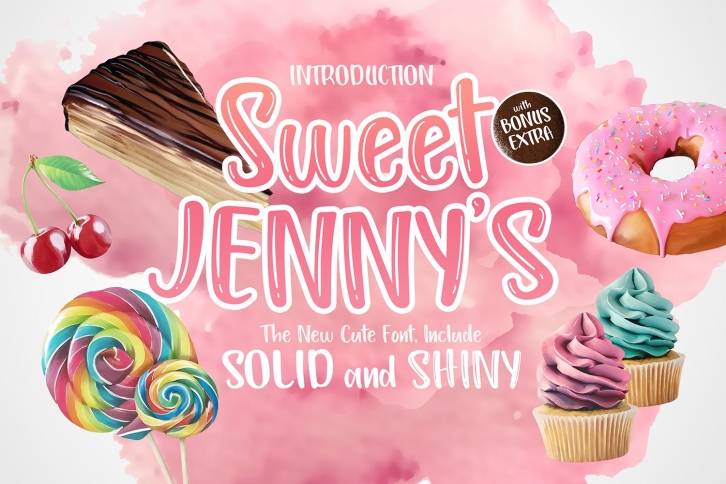
Sweet Jennys is a beautiful font that was designed by HRStudio. It's a great choice for designers and creatives who need such a font. It was released on August 9, 2020 and the file size is 9.45 MB. Sweet Jennys may give a more youthful, expressive and casual look to your project. It is a very beautiful, refined, elegant, and high-quality font.